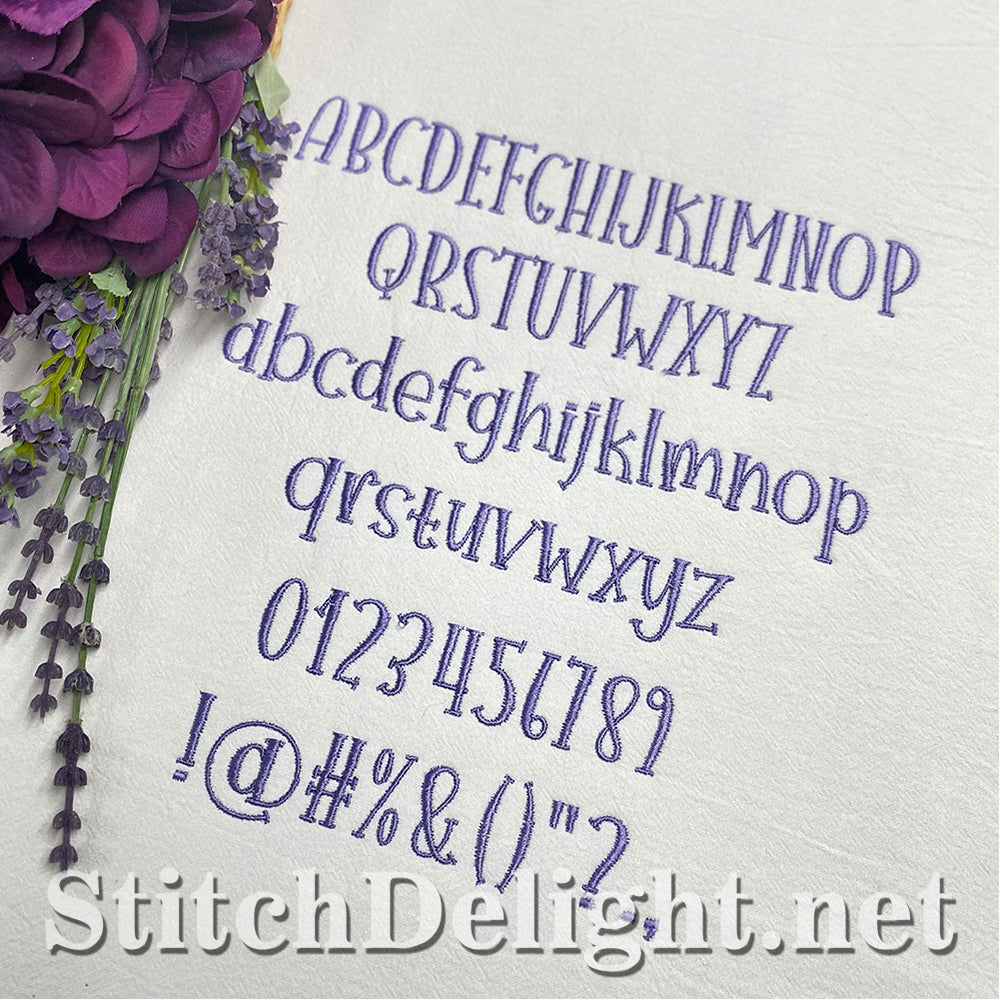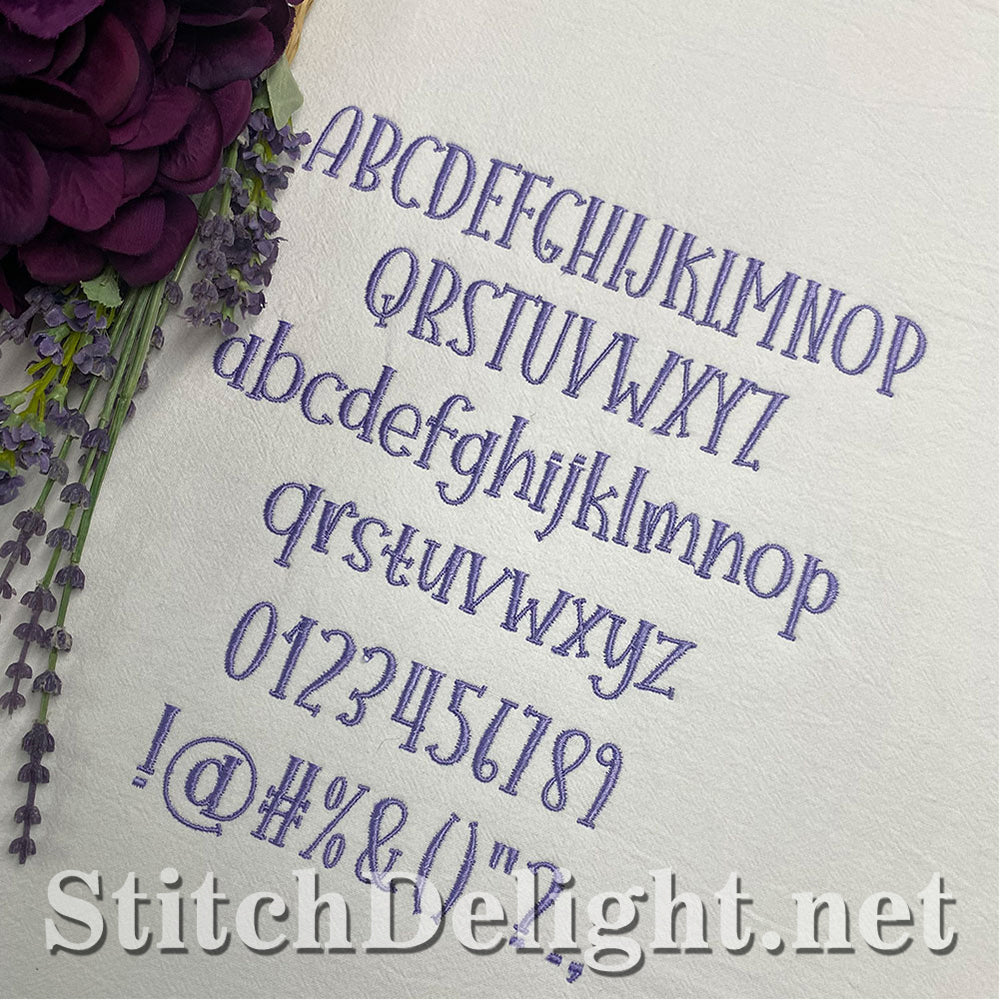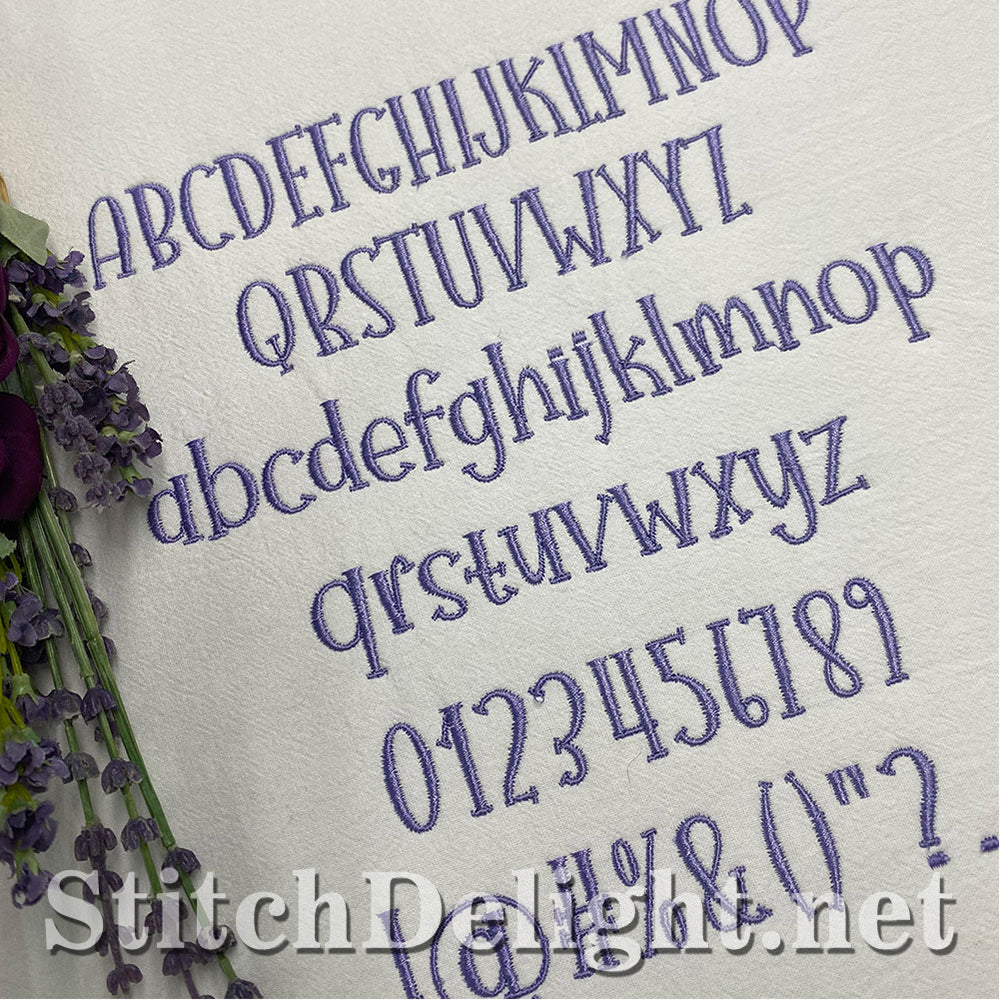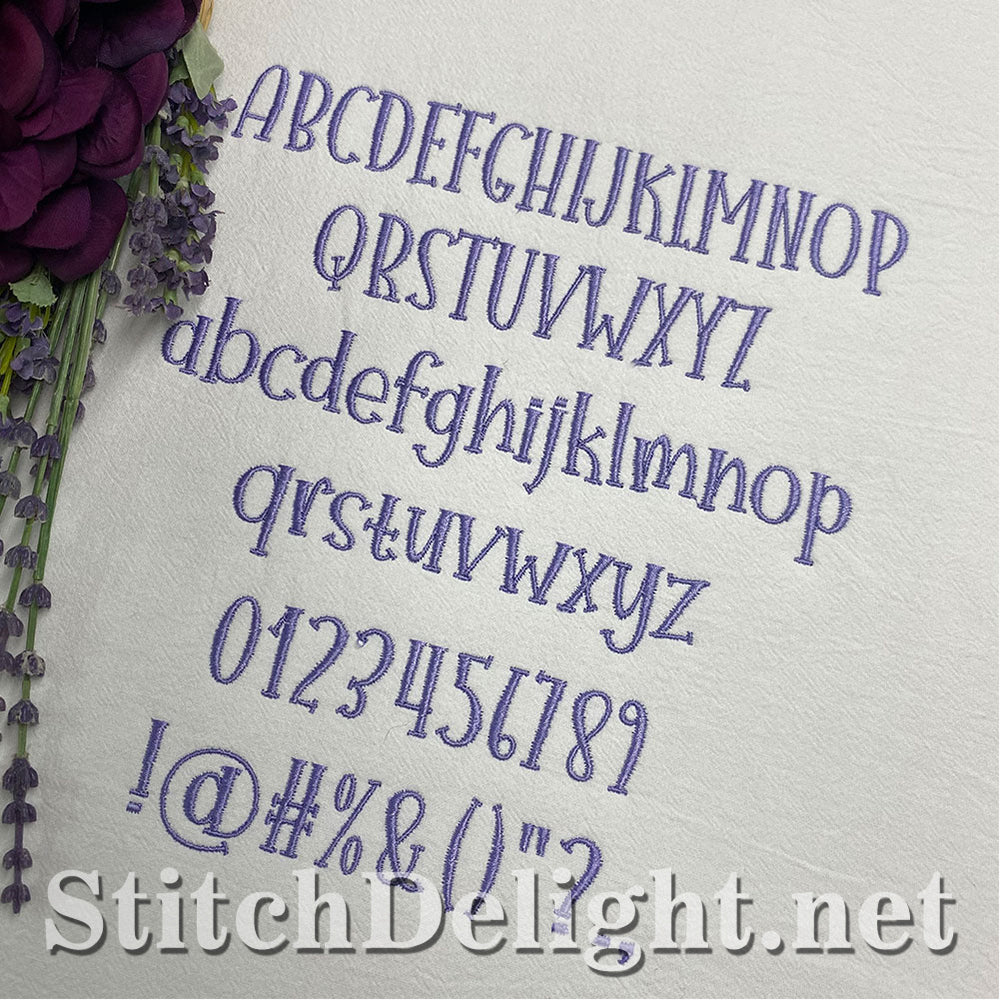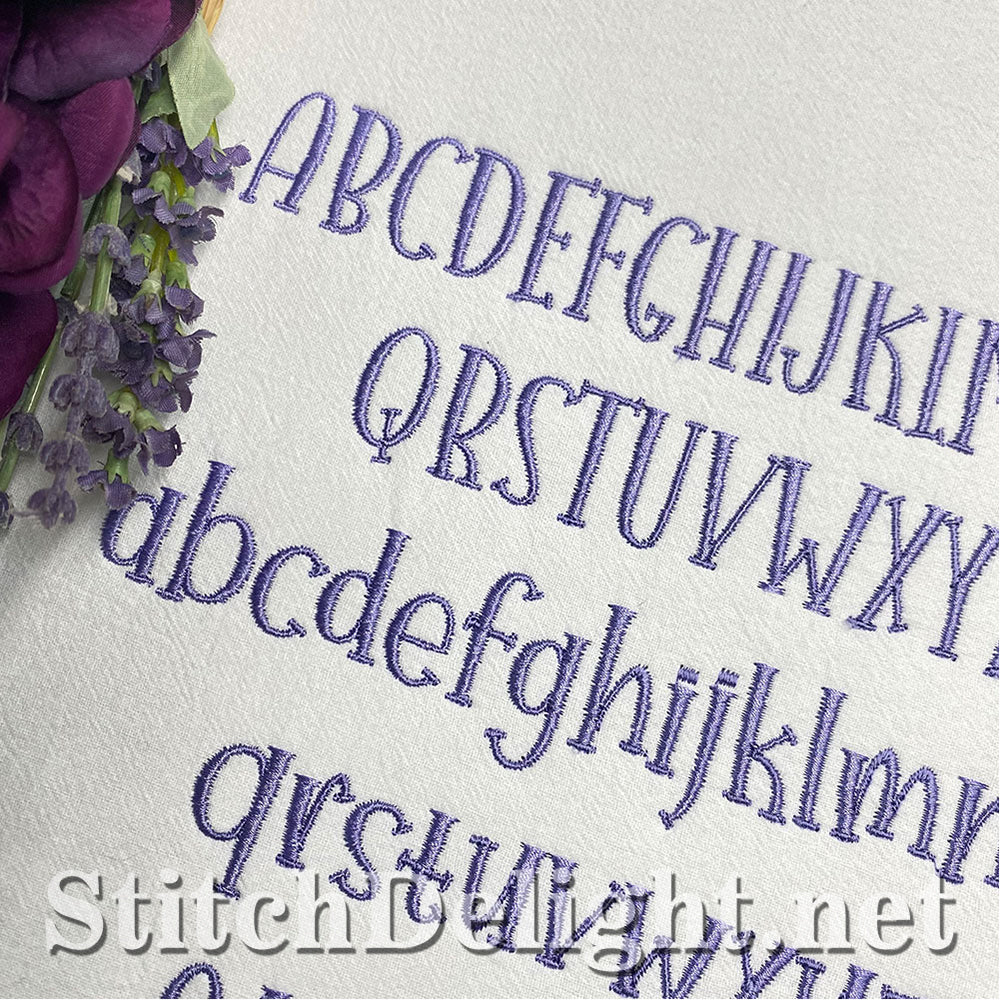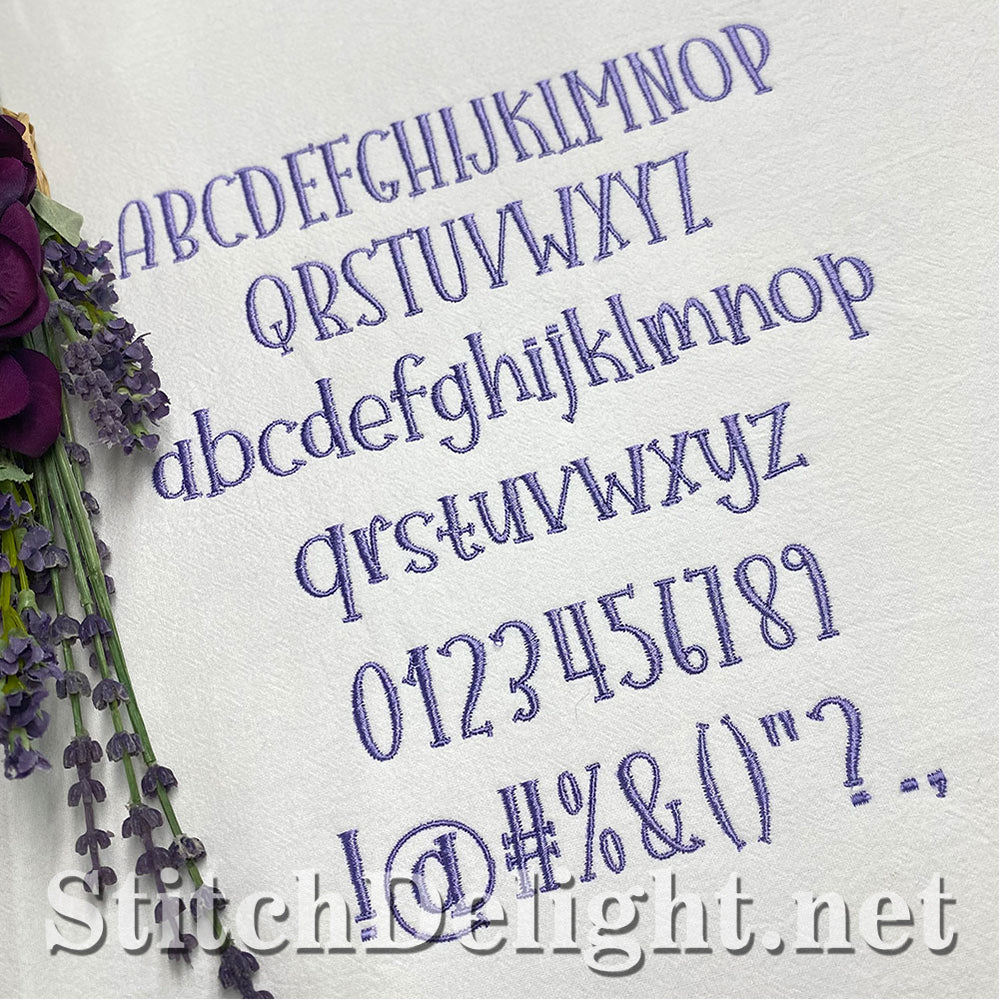
Stunning easy to read font with a letter height of only 0.90" making this the idea font for custom garment naming and adding quotes/sayings to your projects.